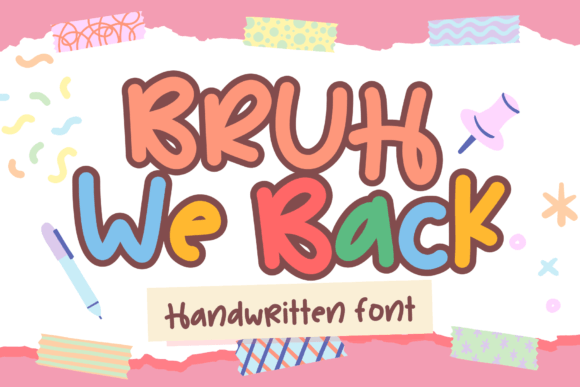
The Ultimate Guide to Bruh We Back Font: Adding Playfulness to Your Designs
I’ll never forget the time I was working on a branding project for a children’s party planning service. I had all the elements in place – the color palette, the logo concept, and the overall aesthetic – but something was missing. As I scrolled through font after font, I just couldn’t find the right fit. That was until I stumbled upon Bruh We Back, a cute handwritten font that instantly captured the playful and carefree spirit of the brand. In this article, I’ll share my experience with Bruh We Back, its features, and how to make the most of it in your designs.
An Honest Review of Bruh We Back
Bruh We Back is a charming handwritten font that embodies playfulness and authenticity. Here are some things I love about it:
- ✨ Unique and quirky character set that adds a personal touch to any design
- 💕 Perfect for creative projects, such as blog posts, logos, branding, ads, invitations, and more
- 🎉 Supports OpenType features, glyphs, and stylistic alternates for added versatility
While Bruh We Back is an excellent font, it’s not without its quirks. Here are a few things to keep in mind:
- 🤔 Some characters may not work well in all contexts, such as in very small font sizes or when used as a body font
- ⚠️ Limited language support, so it’s best suited for English or similar languages
The Story Behind Bruh We Back
Bruh We Back was designed with playfulness and authenticity in mind. The font’s creator aimed to craft a unique and quirky character set that would add a personal touch to any design. With its cute and carefree spirit, Bruh We Back is perfect for creative projects that need a bit of personality.
| What type of projects is Bruh We Back best suited for? | Bruh We Back is perfect for creative projects such as blog posts, logos, branding, ads, invitations, greeting cards, planners, photo albums, decorations, and more. |
| Does Bruh We Back support OpenType features? | Yes, Bruh We Back supports OpenType features, glyphs, and stylistic alternates, making it a versatile font for a wide range of design applications. |